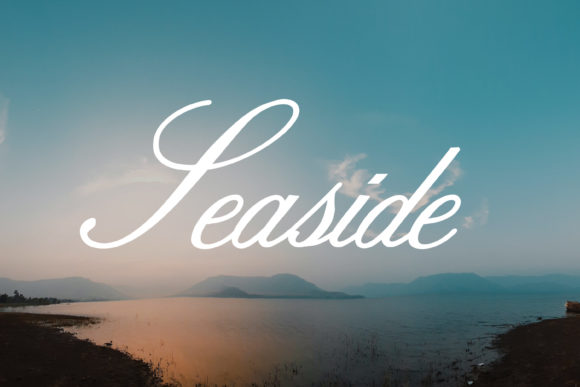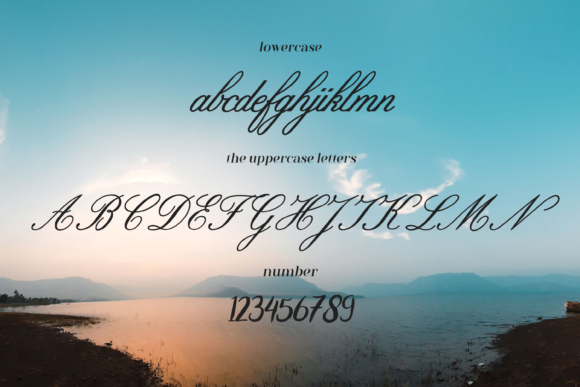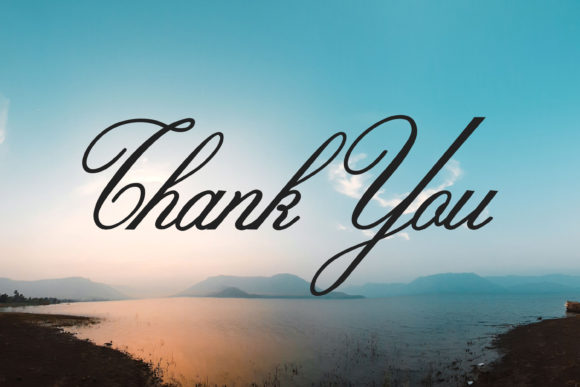
Introducing Camelia Font: Elevate Your Designs with Elegance and Style
Are you a designer or crafter looking for a font that exudes elegance and sophistication? Look no further than Camelia Font, a beautiful handwritten font that is perfect for adding a personal touch to your creations. In this article, we’ll dive into the world of Camelia Font, exploring its features, uses, and benefits, as well as provide tips and inspiration for incorporating it into your designs.
What is Camelia Font?
Camelia Font is a stunning handwritten font that is designed to bring a touch of elegance and style to your designs. With its flowing curves and delicate lines, Camelia Font is perfect for creating beautiful wedding designs, birthday cards, and other creations that require a personal note. Whether you’re a professional designer or a crafty DIY enthusiast, Camelia Font is sure to become a favorite in your font collection.
Features of Camelia Font
So, what makes Camelia Font so special? Here are just a few of its standout features:
- Elegant and stylish: Camelia Font is designed to be elegant and stylish, making it perfect for designs that require a touch of sophistication.
- Handwritten: With its handwritten feel, Camelia Font adds a personal touch to your designs, making them feel more unique and special.
- Versatile: Camelia Font works great on a variety of designs, from wedding invitations and birthday cards to posters and social media graphics.
- Easy to read: Despite its elegant feel, Camelia Font is easy to read, making it perfect for designs that require a clear and concise message.
Uses for Camelia Font
So, how can you use Camelia Font in your designs? Here are just a few ideas to get you started:
- Wedding designs: Camelia Font is perfect for wedding invitations, save-the-date cards, and other wedding-related designs.
- Birthday cards: Add a personal touch to your birthday cards with Camelia Font, making them feel more special and unique.
- Social media graphics: Use Camelia Font to create beautiful social media graphics, such as quotes, announcements, and promotions.
- Posters and flyers: Camelia Font works great on posters and flyers, adding a touch of elegance and sophistication to your designs.
Tips for Using Camelia Font
Here are a few tips for getting the most out of Camelia Font:
- Pair it with other fonts: Experiment with pairing Camelia Font with other fonts to create a unique and interesting look.
- Use it sparingly: While Camelia Font is beautiful, it can be overwhelming if used too much. Use it sparingly to create a clear and concise message.
- Play with colors: Camelia Font works great in a variety of colors, so don’t be afraid to experiment and find the perfect hue for your design.
Inspiration for Your Designs
Still looking for inspiration for your designs? Here are a few ideas to get you started:
- Floral patterns: Pair Camelia Font with beautiful floral patterns for a romantic and elegant look.
- Watercolor illustrations: Combine Camelia Font with watercolor illustrations for a whimsical and playful feel.
- Gold accents: Add a touch of luxury to your designs with gold accents and Camelia Font.
| Font Name | Camelia Font |
| Author | TDC.Graphic |
In conclusion, Camelia Font is a beautiful and elegant handwritten font that is perfect for adding a personal touch to your designs. With its flowing curves and delicate lines, Camelia Font works great on wedding designs, birthday cards, and other creations that require a personal note. Whether you’re a professional designer or a crafty DIY enthusiast, Camelia Font is sure to become a favorite in your font collection. So why wait? Download Camelia Font today and start elevating your designs with elegance and style!